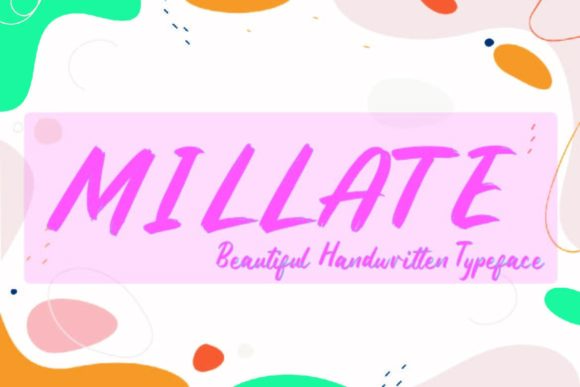
Welcome to the world of Millate Font, where elegance and charm intertwine to create a masterpiece that will leave you breathless. Millate Font, a stunning modern handwritten font, is not just a collection of letters; it's an artistic expression that will transform your creative projects into breathtaking works of art.
With its sweet touch and beautifully curved letters, Millate Font exudes a grace that captures the essence of timeless beauty. The soft curves, carefully crafted by the talented Alera, invite your eyes to dance across the page, creating a visual harmony that's sure to captivate.
Whether you're crafting wedding invitations that evoke a sense of romance, designing fashion magazines that ooze sophistication, or creating logos that leave a lasting impression, Millate Font is your perfect companion. Its versatile nature allows it to seamlessly blend into any project, adding a touch of elegance and sophistication that will make your work stand out from the crowd.
Millate Font's spirit is perfectly suited for capturing the essence of love and commitment in wedding invitations, lending a touch of fairy-tale charm to your special day. Dive into the world of fashion with Millate Font, where its delicate strokes will bring your designs to life, exuding glamour and style. Create logos that radiate professionalism and uniqueness, leaving an indelible mark on your brand's identity.
But Millate Font's versatility doesn't end there. Explore the realm of signatures, where Millate Font transforms your name into a work of art, adding a personal touch to every document you sign. Add a watermark to your photography, using Millate Font to create a subtle yet impactful statement that will leave viewers mesmerized.
Millate Font is more than just a font; it's an experience that will ignite your creativity and elevate your projects to new heights. With its PUA encoding, accessing the amazing glyphs and ligatures is a breeze, empowering you to unleash your artistic vision without limits.
So, if you seek a font that will transport your designs to a realm of timeless beauty, look no further than Millate Font. Let its enchanting curves and elegant strokes captivate your audience, leaving them in awe of your creative genius.